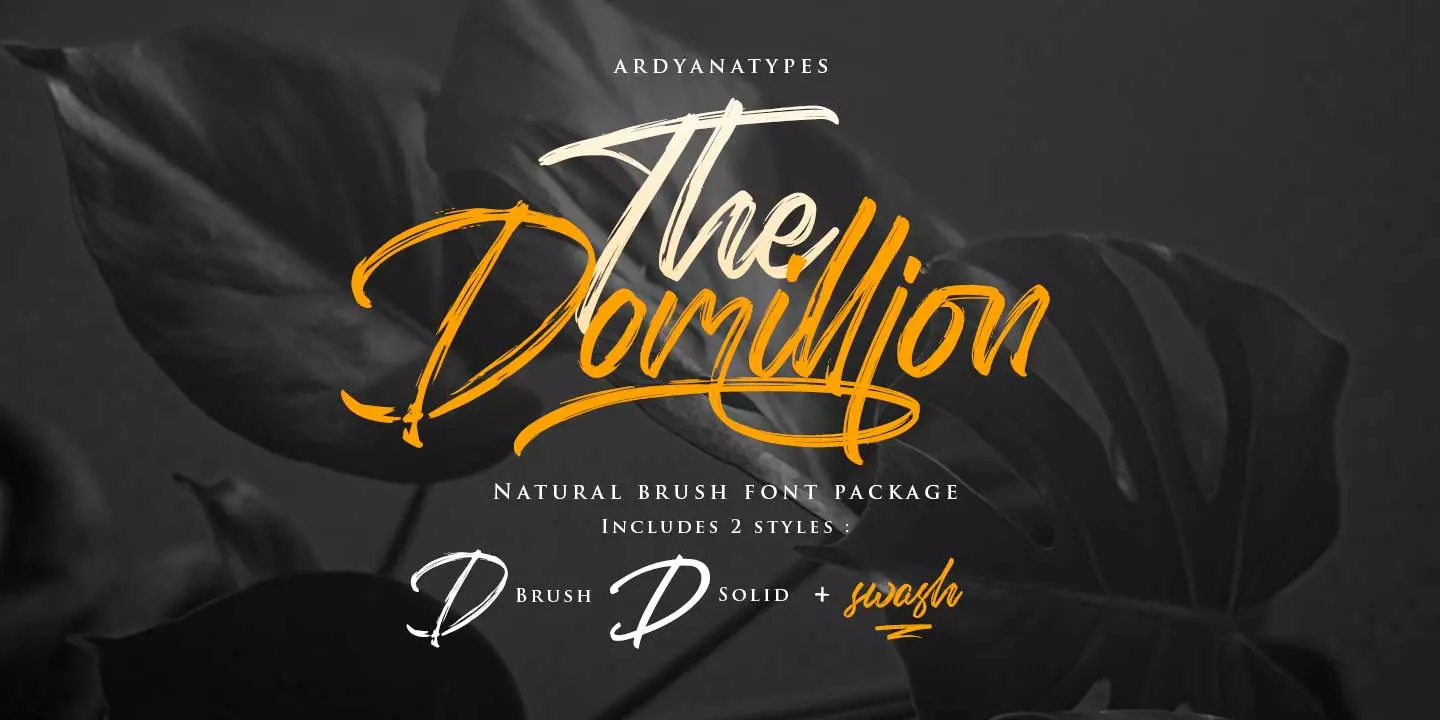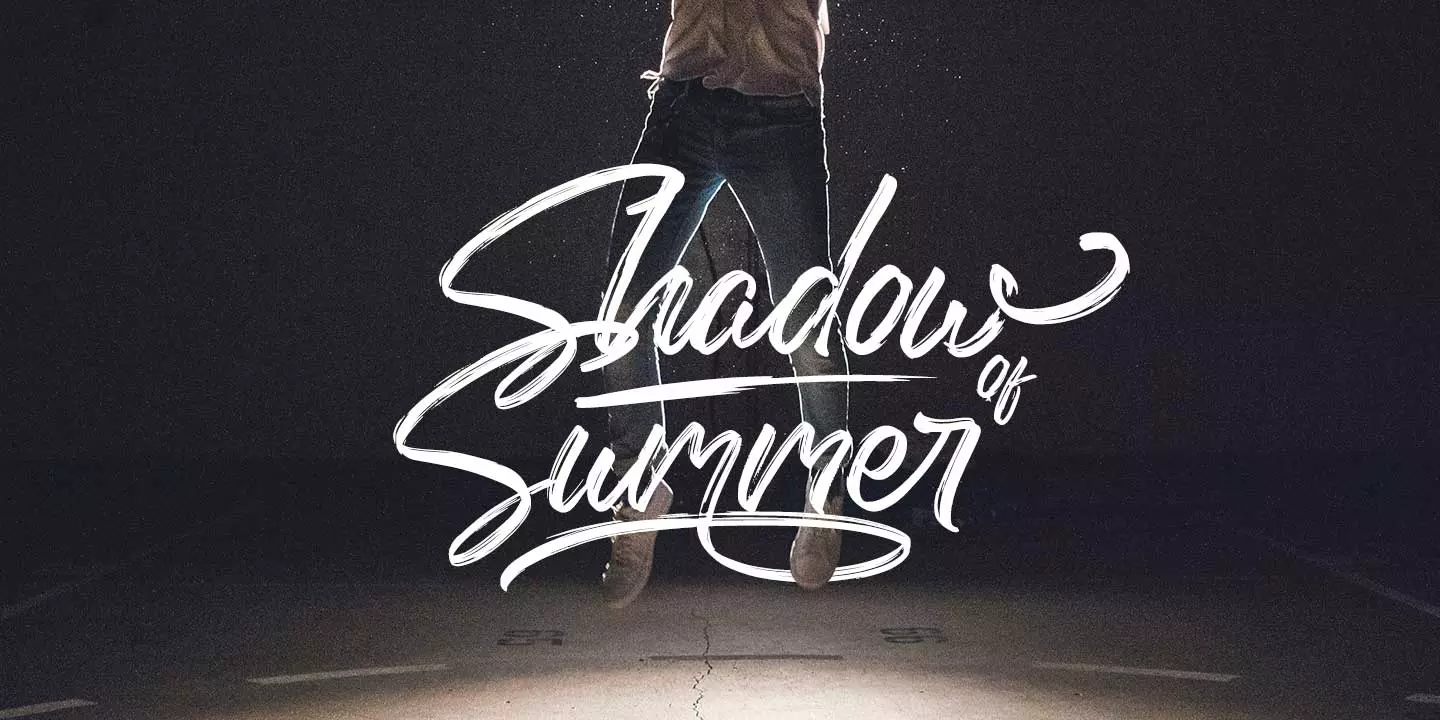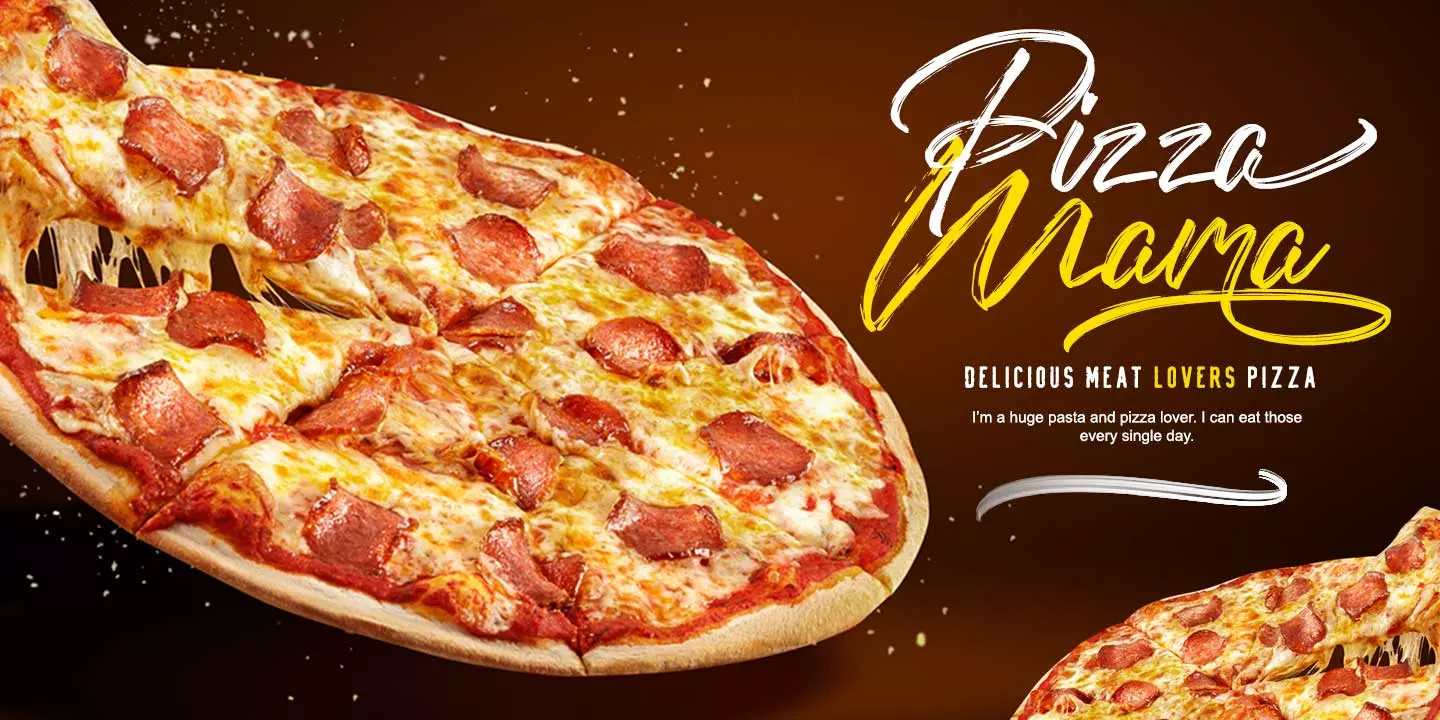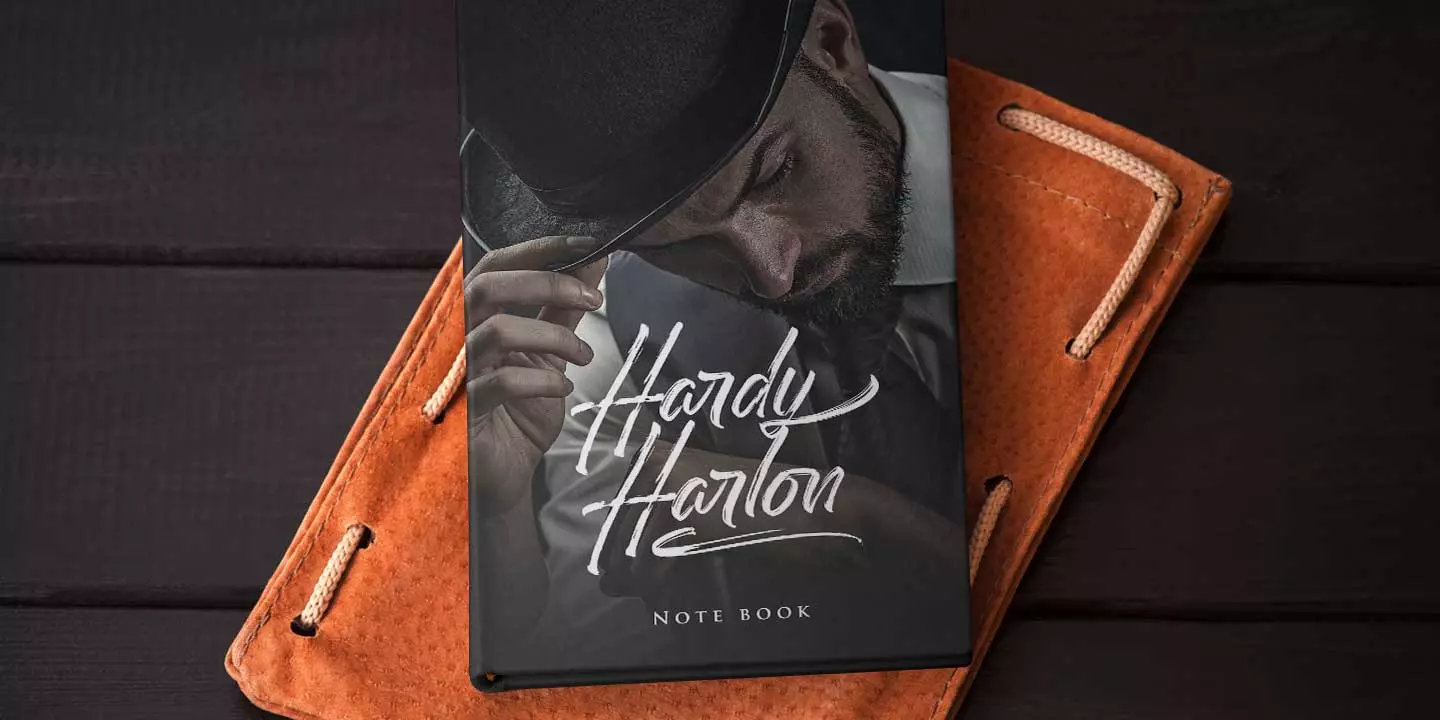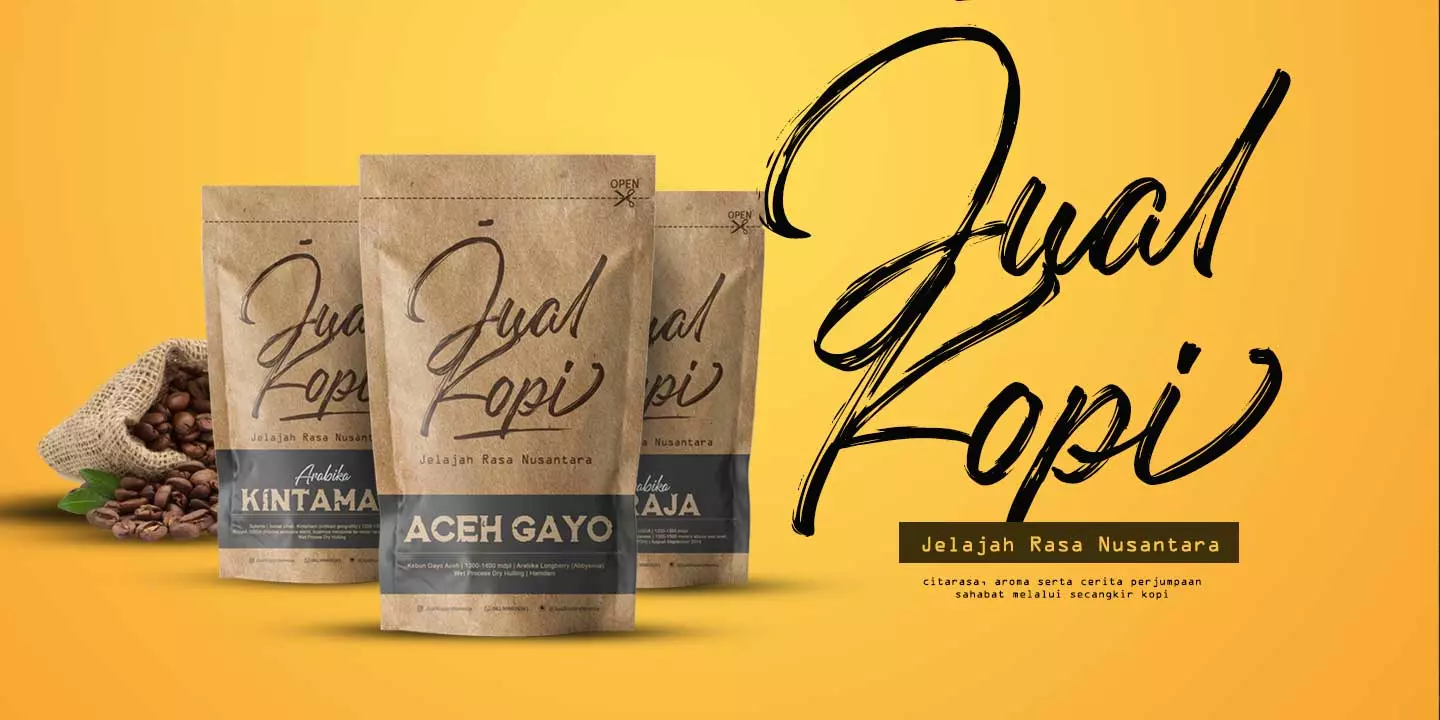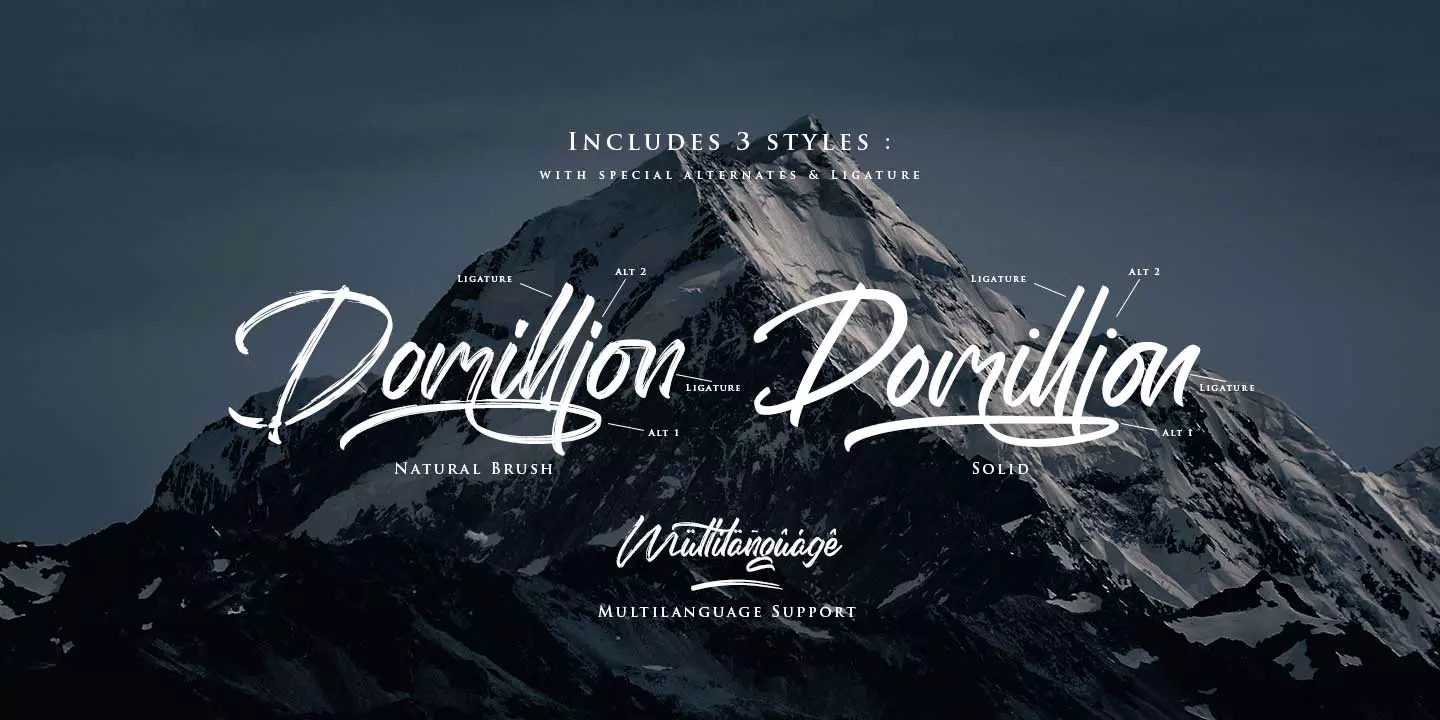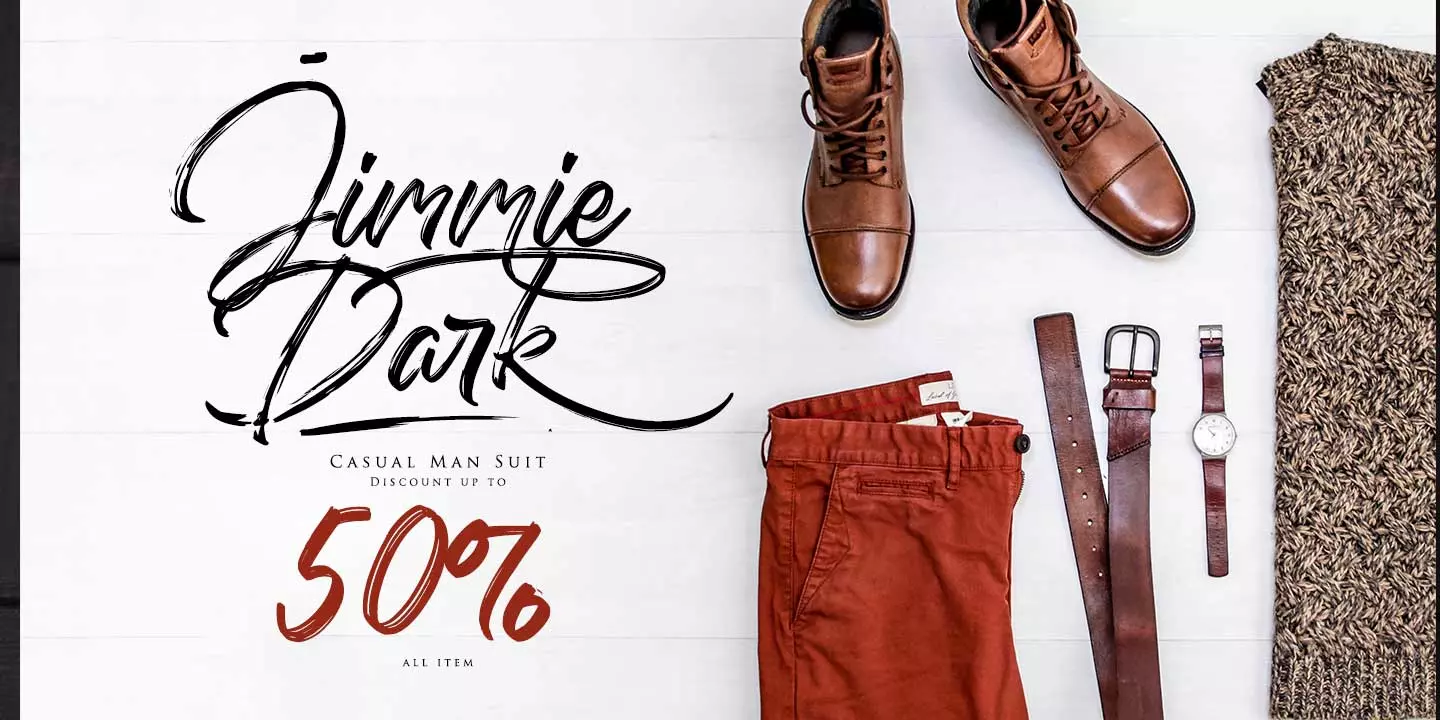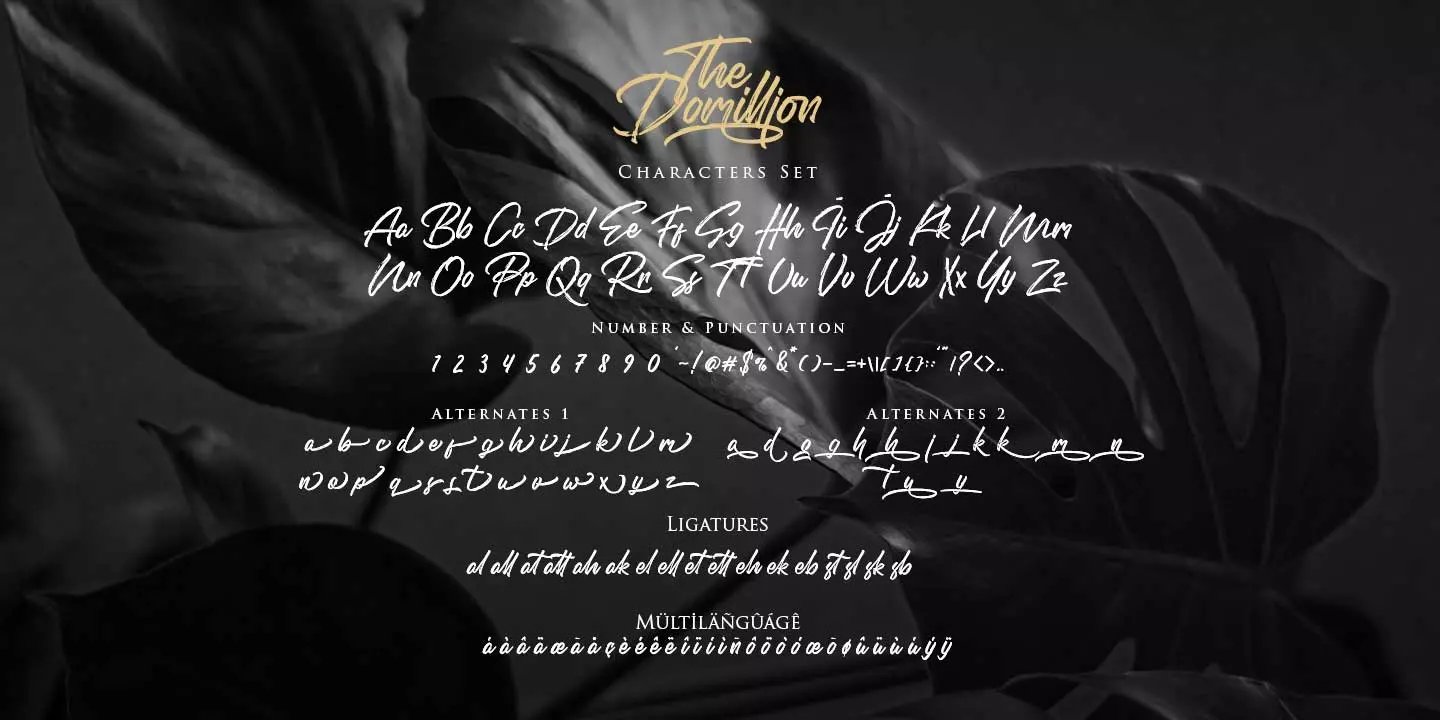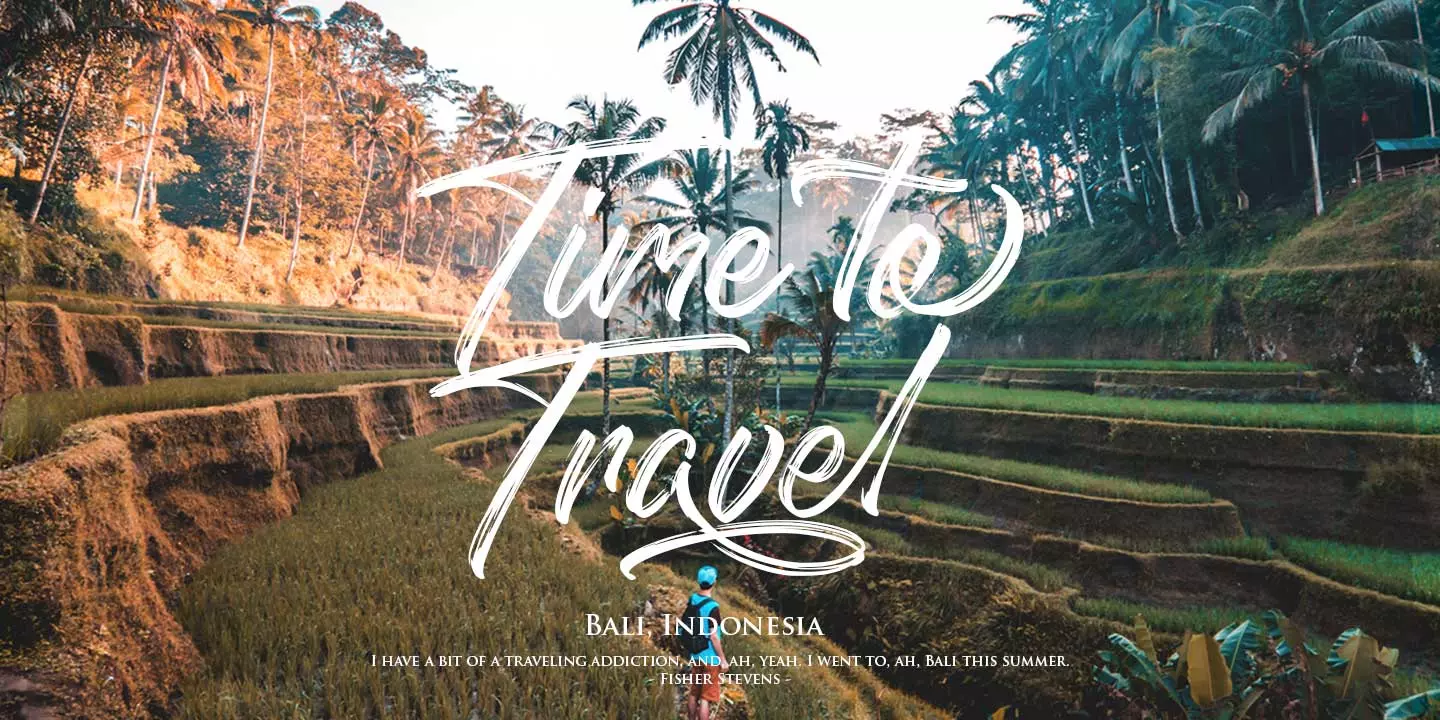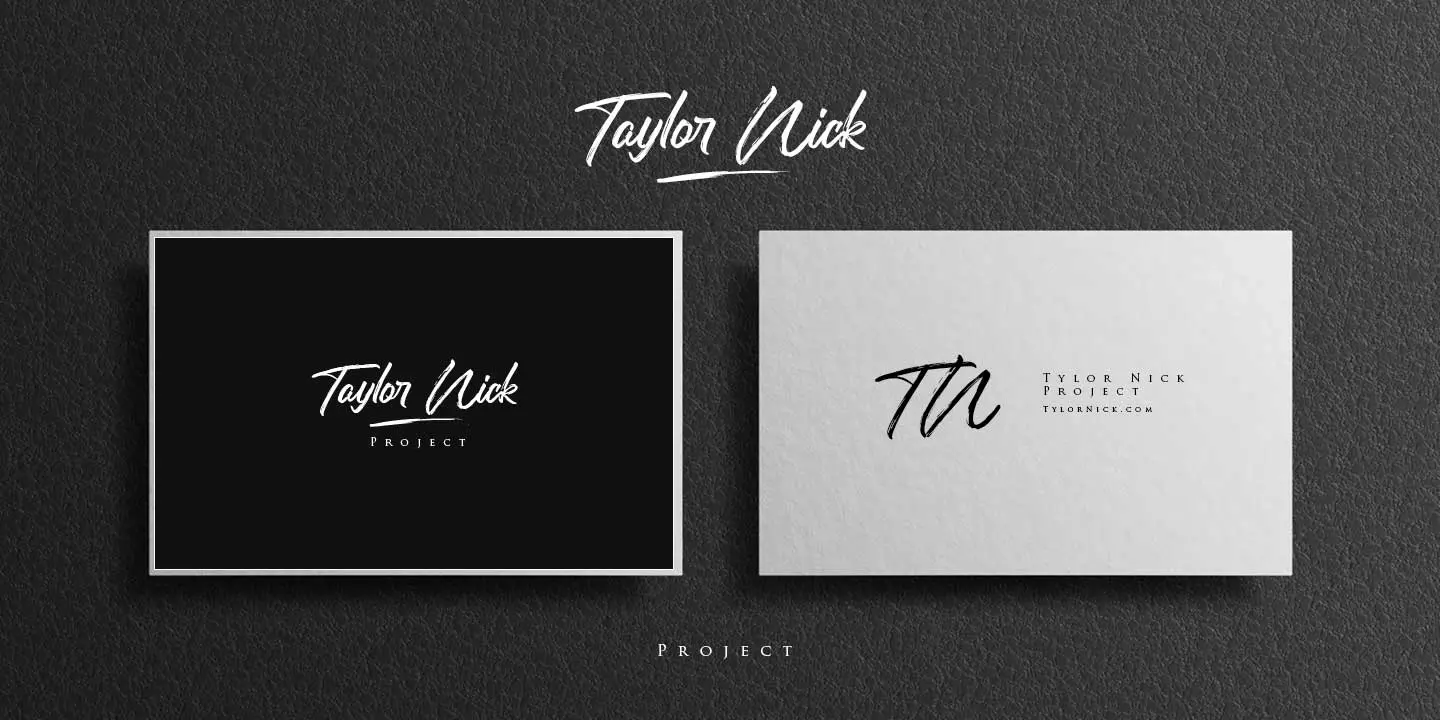
Domilion
3 Styles
Domillion is made with natural hand scratches that are perfect for beautifying your design. Domillion comes with 3 variations of accents, submitted Brush, SVG, and Clean, each of which has its own charm. Domillion Brush has a collection of very natural shapes that give a real touch of natural graffiti to each of your designs, while Domillion SVG has a more solid and elegant typical stroke from domillion brushes making the SVG domillion look more masculine, and the last is Domillion Clean. Become a complement to the Domillion Brush, which can give you a choice of sharper characters who are also sticky with Alternative characters and Swahs to beautify each stroke from domillion. Domillion is the perfect choice for posters, signatures, logos, quotes, album covers, business cards, product designs and other design projects with elegant charm that is sharp, classy, easy to read, stylish and unforgettable.
• all all
• att att
• ak ak
• ax ax
• ar ar
• at at
• ah ah
• al al
• cr cr
• cx cx
• ell ell
• ett ett
• er er
• eb eb
• ek ek
• el el
• eh eh
• et et
• ex ex
• fj fj
• hx hx
• ir ir
• ix ix
• oo oo
• on on
• or or
• sx sx
• sj sj
• sk sk
• sb sb
• sh sh
• sl sl
• ux ux
• ur ur